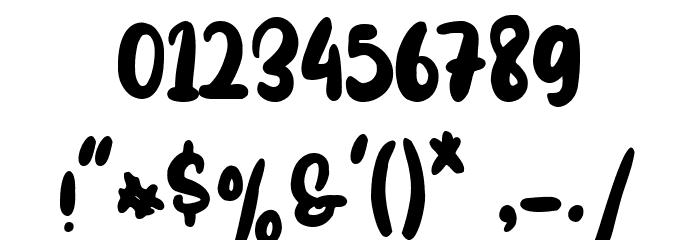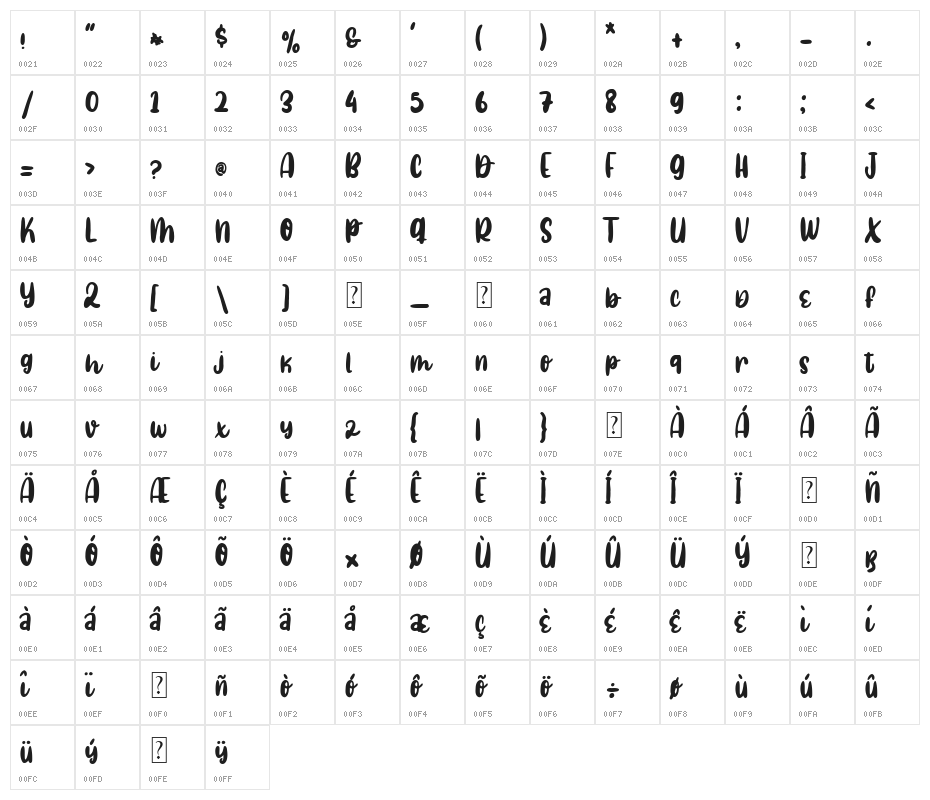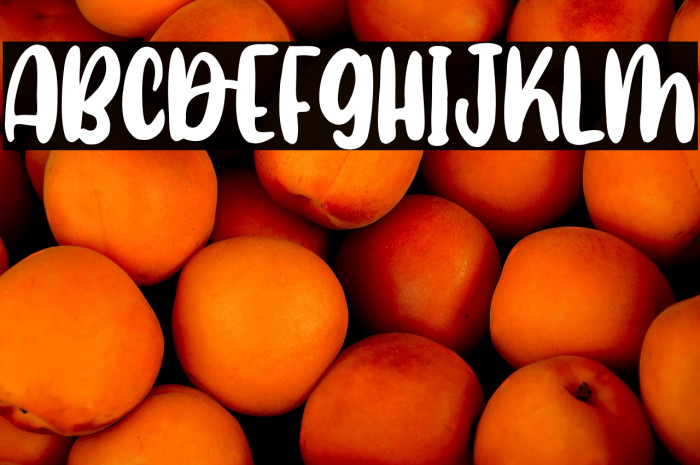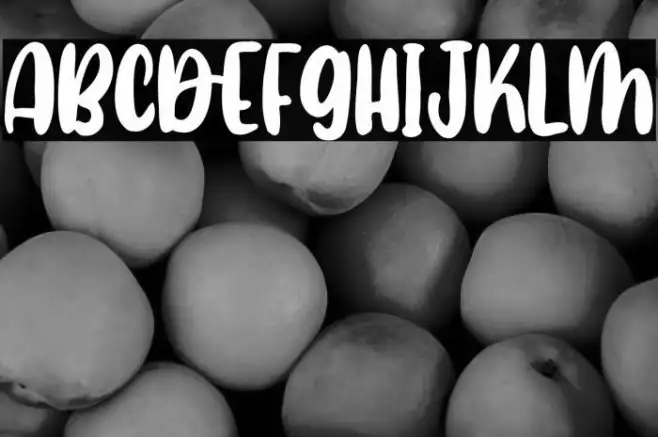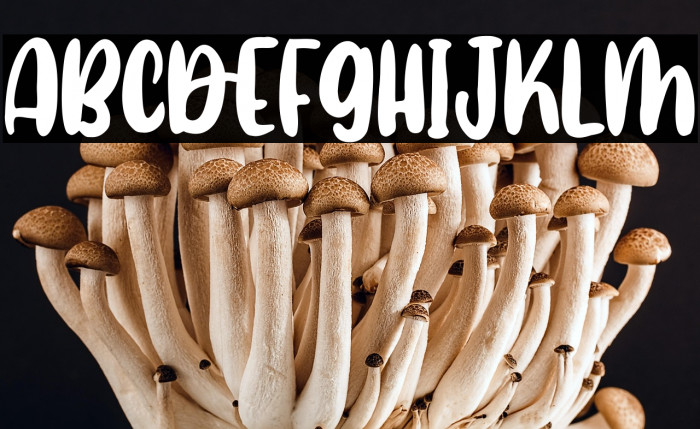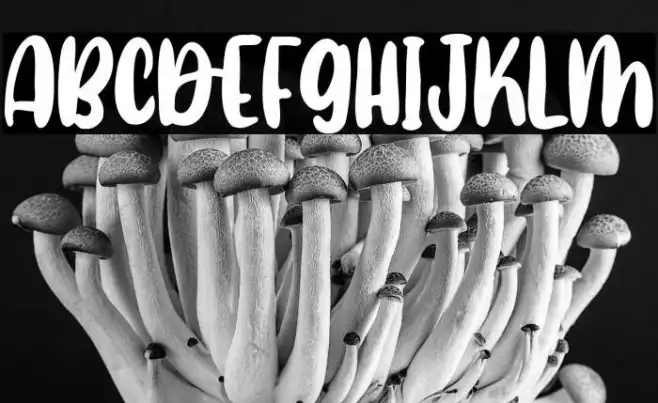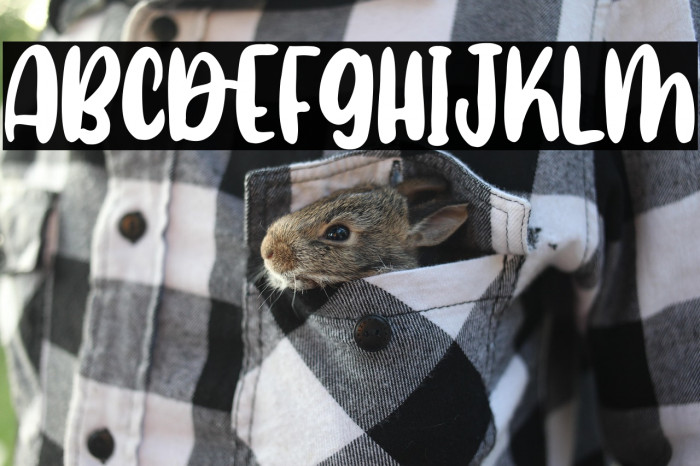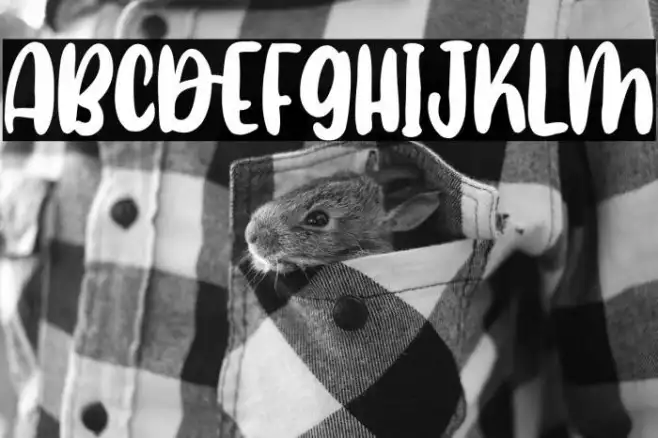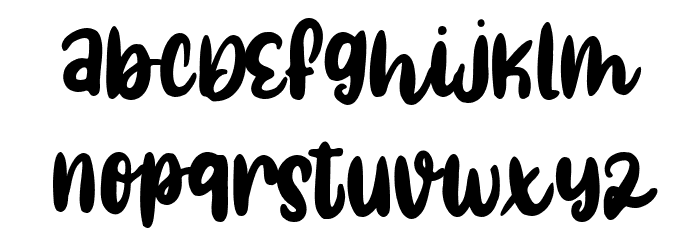
Agile Sloth Font
Agile Sloth Description
This font exhibits a playful and bold handwritten style, characterized by its thick, rounded strokes and smooth curves. The letters are closely spaced, creating a cohesive and energetic appearance. The uppercase and lowercase letters maintain a consistent flow, with a slight slant that adds to the casual, informal vibe. The numbers and special characters are designed with the same boldness and fluidity, ensuring uniformity across all elements. This font's lively and approachable aesthetic makes it suitable for projects that require a personal touch.
Overall StylePlayful
Proposed ProjectsIdeal for greeting cards, children's books, playful branding, and social media graphics.